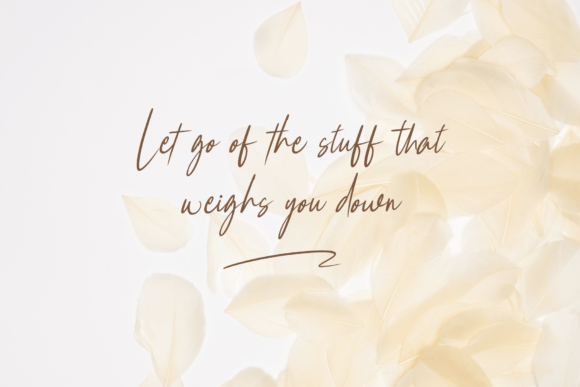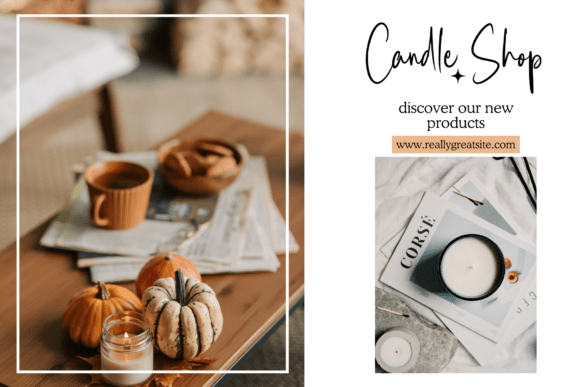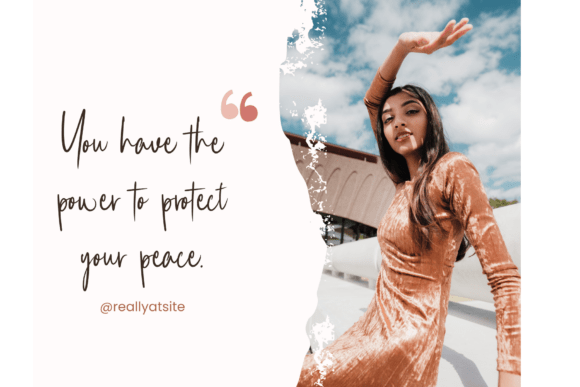
Introduction to Dellution Font
Dellution is a modern and elegant signature font that brings a touch of class and sophistication to any design.
👤 Author Nox Studio
With its smooth strokes and natural handwritten style, Dellution is perfect for branding, logos, invitations, product packaging, quotes, social media posts, and many other creative projects Designed to look effortless yet refined, this font adds a personal and stylish feel to your work.
Key Features of Dellution Font
Why Choose Dellution Font?
Dellution Font offers exceptional quality and versatility, making it a valuable addition to your design toolkit. Whether you’re creating for personal projects or commercial use, Dellution Font delivers professional results.